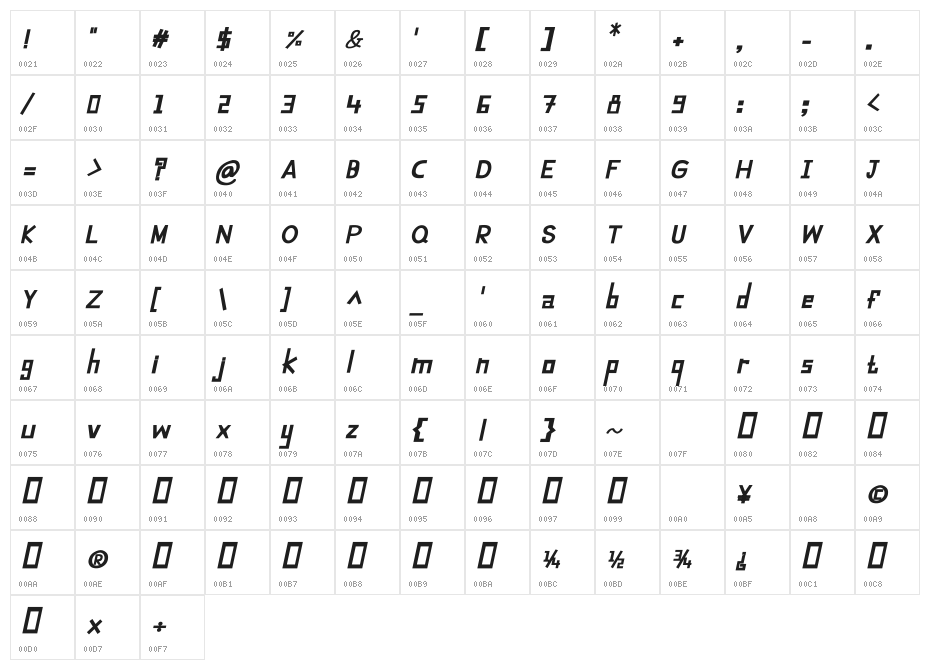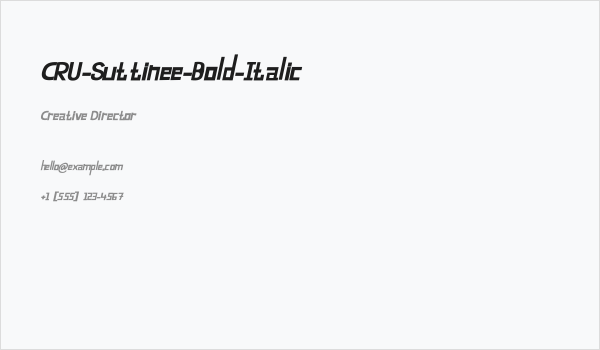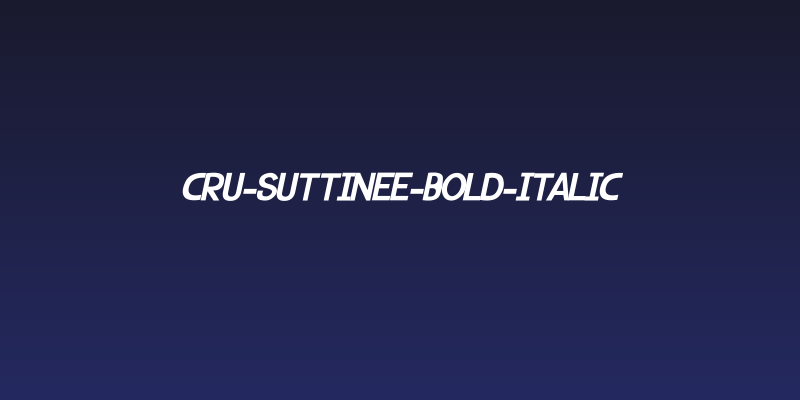
CRU-Suttinee-Bold-Italic Font
CRU-Suttinee-Bold-Italic Description
This font exhibits a bold and italicized style with a modern and dynamic appearance. The characters are slightly slanted, giving a sense of motion and energy. The strokes are thick and consistent, providing a strong visual impact. The uppercase and lowercase letters maintain a uniform width, contributing to a cohesive look. The numerals and special characters are designed to match the overall style, ensuring versatility across different uses. The font's design is clean and legible, making it suitable for various applications.